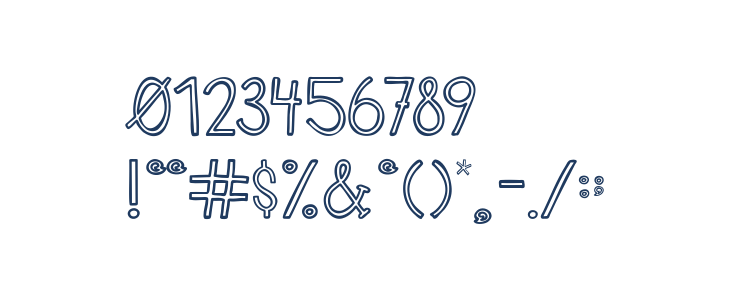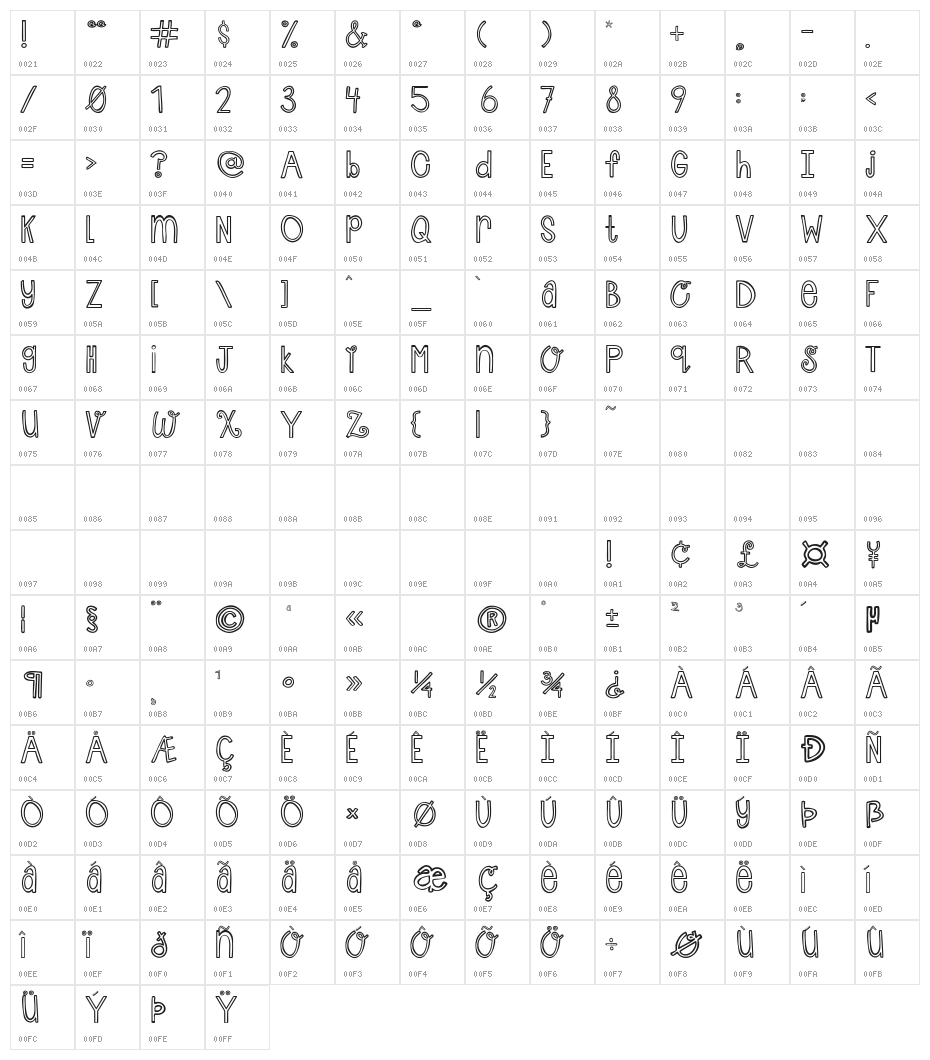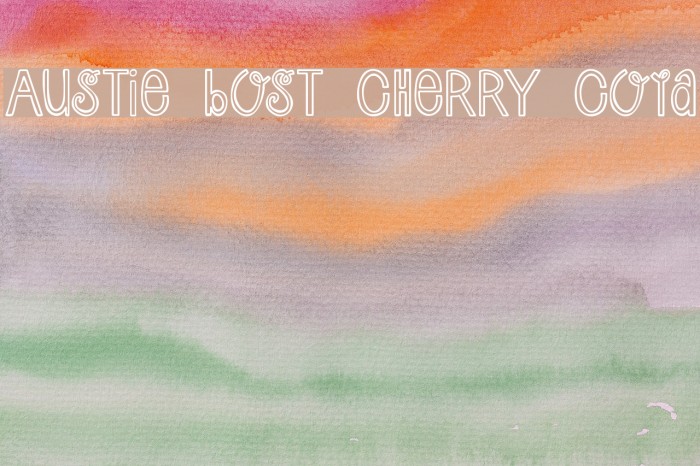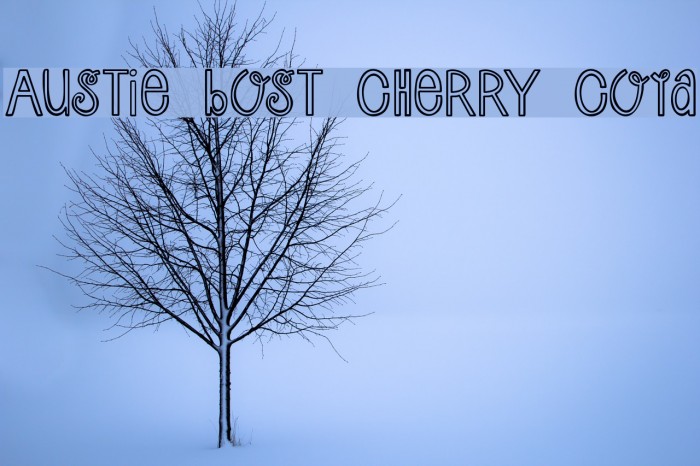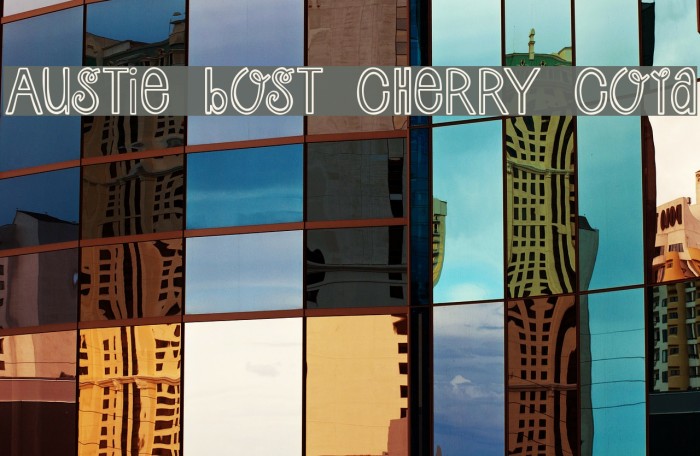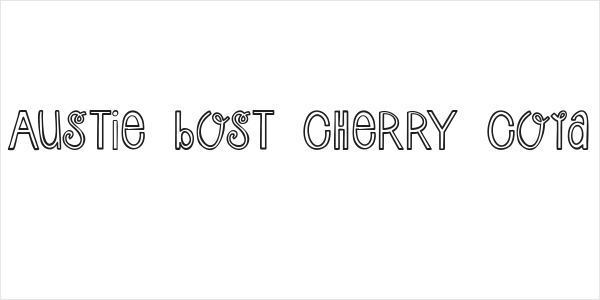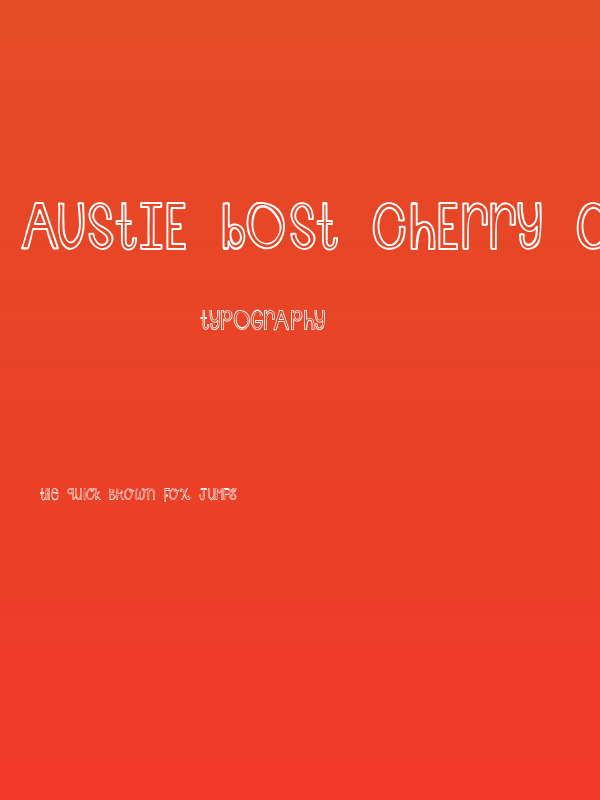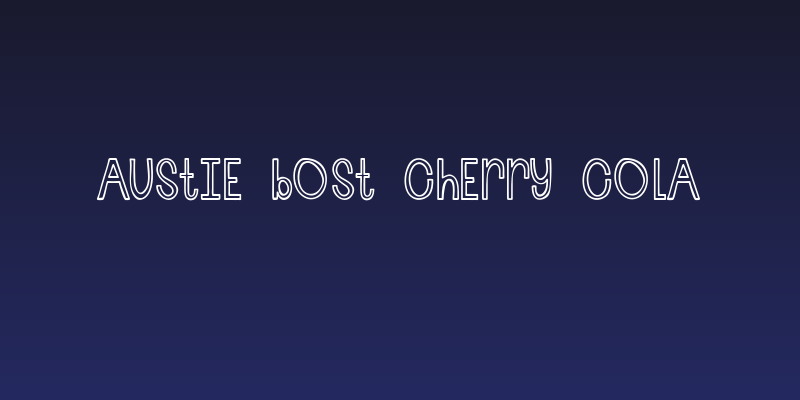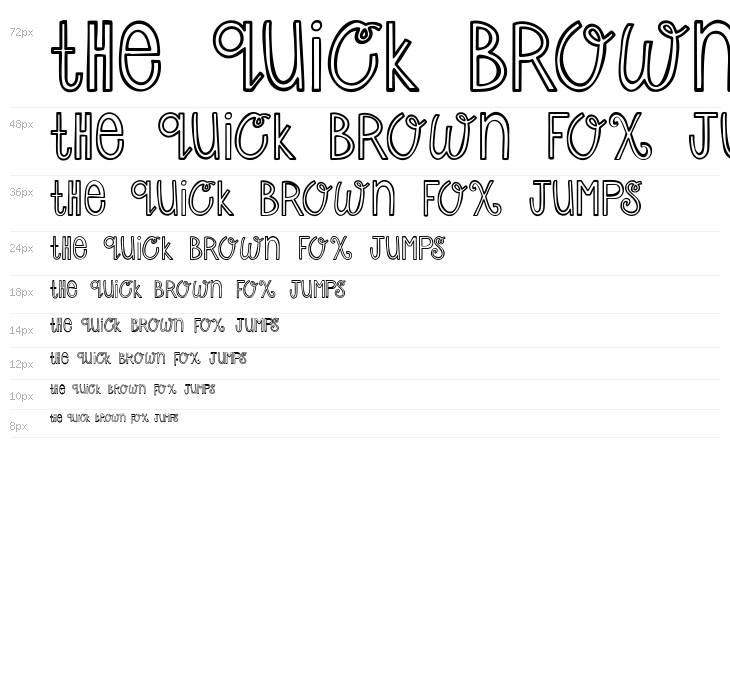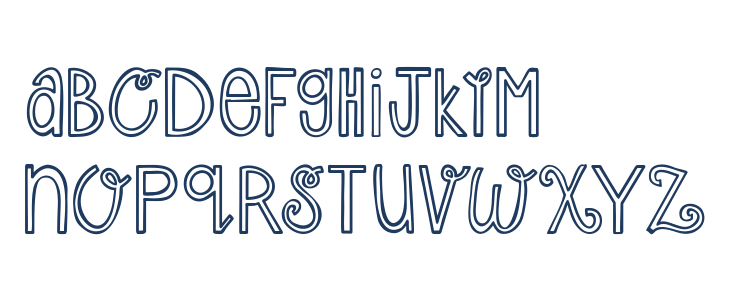
Austie Bost Cherry Cola Font
Austie Bost Cherry Cola Description
This playful and whimsical font features a unique blend of bold outlines and quirky, hand-drawn elements. Each character is designed with a sense of fun and creativity, incorporating heart shapes and swirls that add a touch of charm. The uppercase and lowercase letters maintain a consistent style, with rounded edges and a slightly irregular form that enhances its casual and friendly appearance. Numbers and special characters follow the same playful theme, making this font ideal for projects that require a lighthearted and engaging aesthetic.
| Overall Style | Whimsical, Playful |
| Proposed Projects | Ideal for children's books, greeting cards, playful branding, and creative posters. |